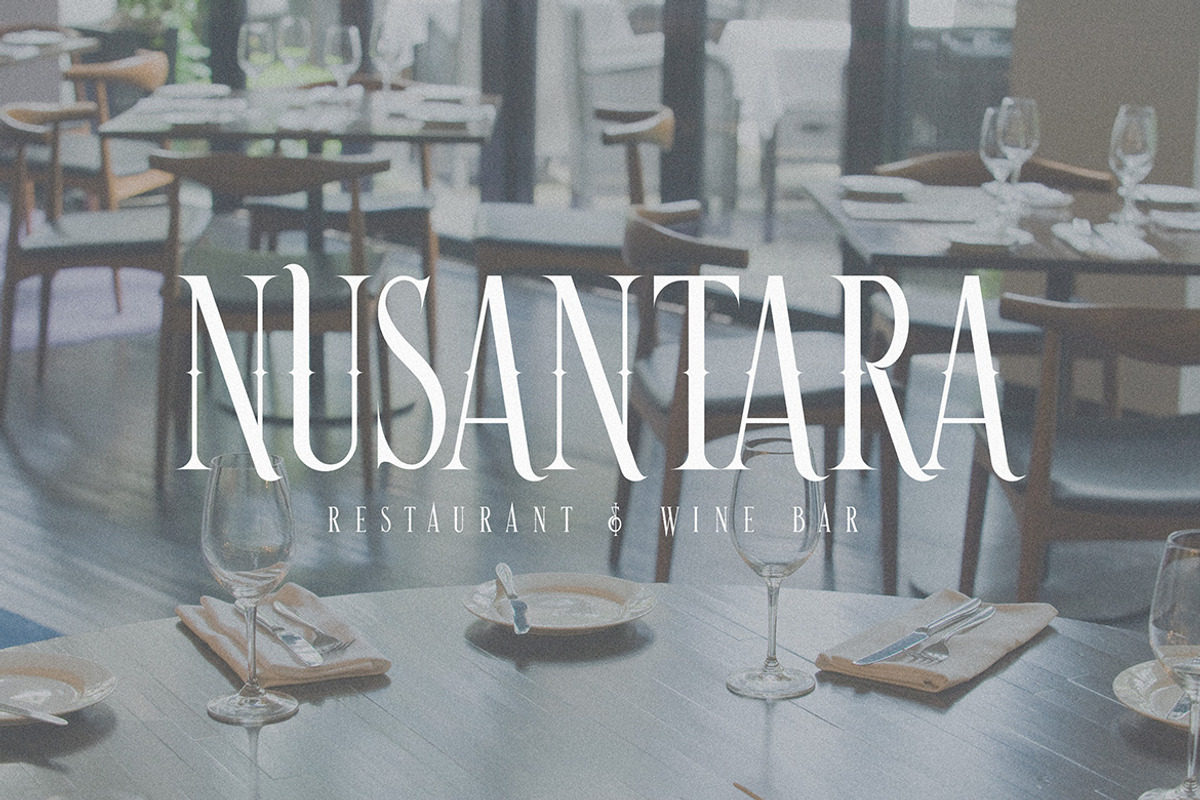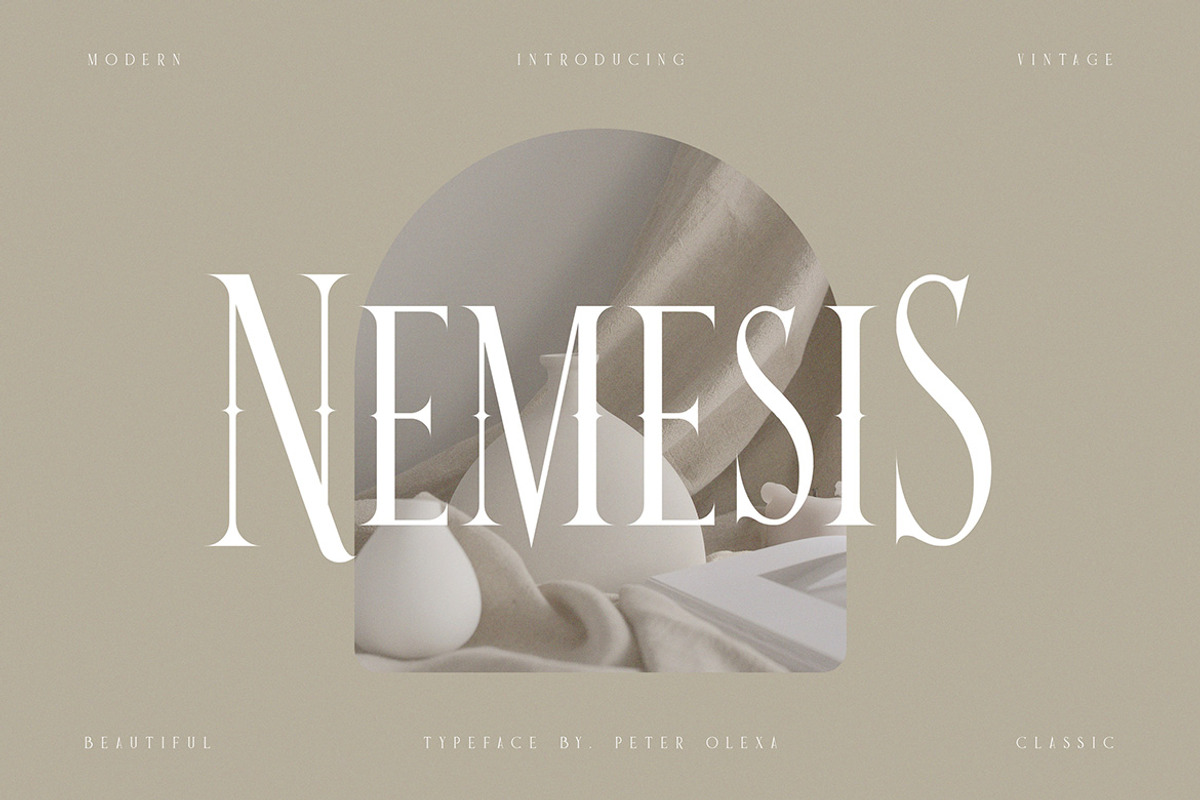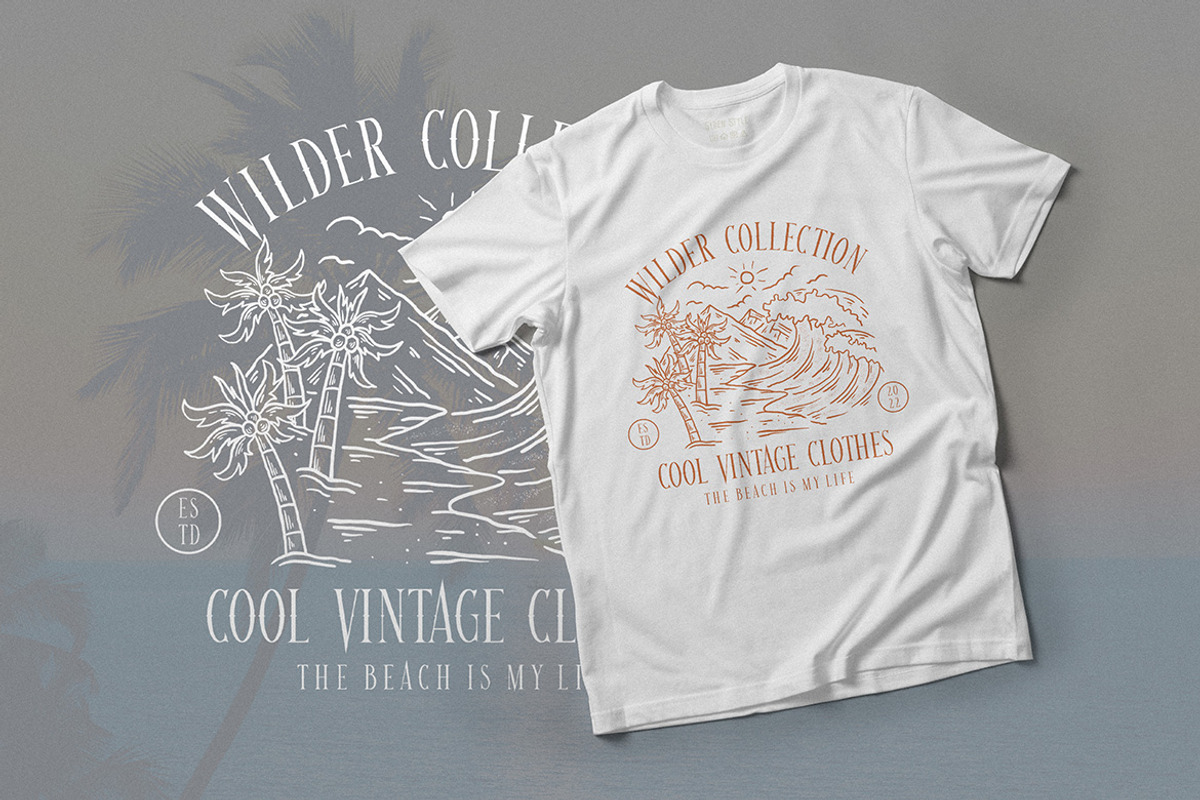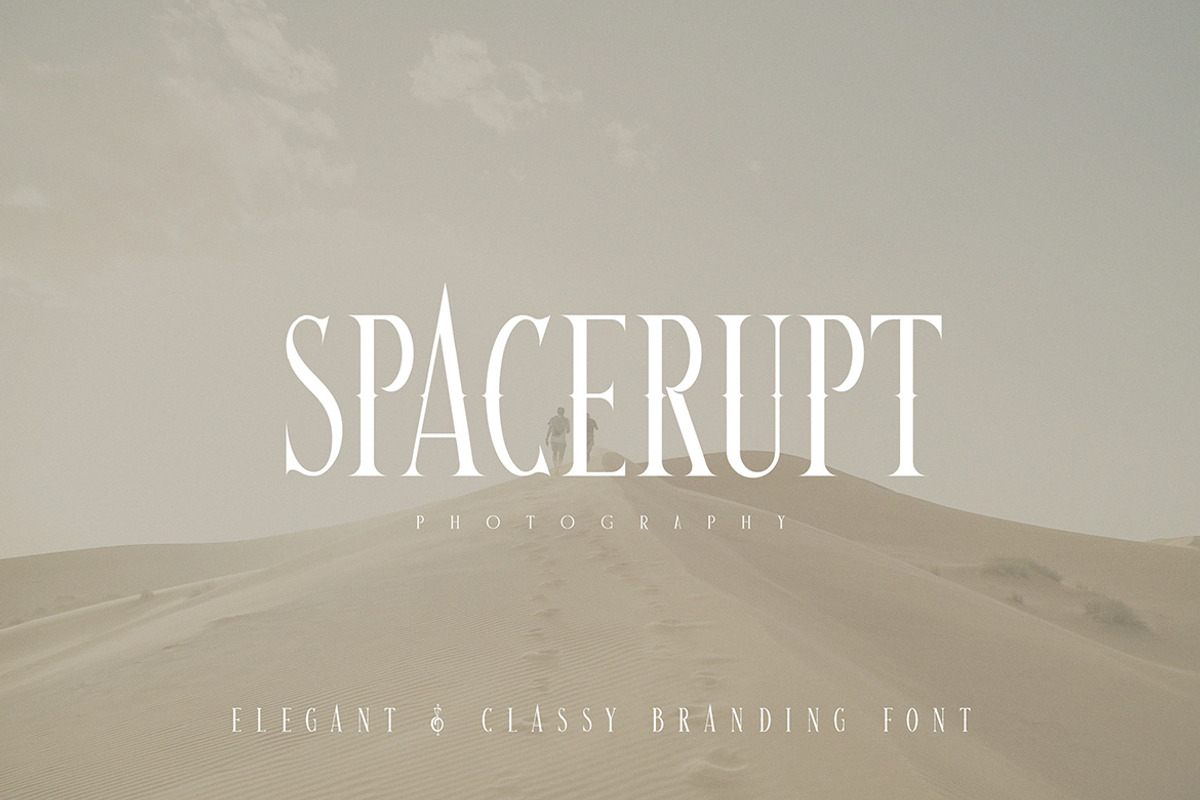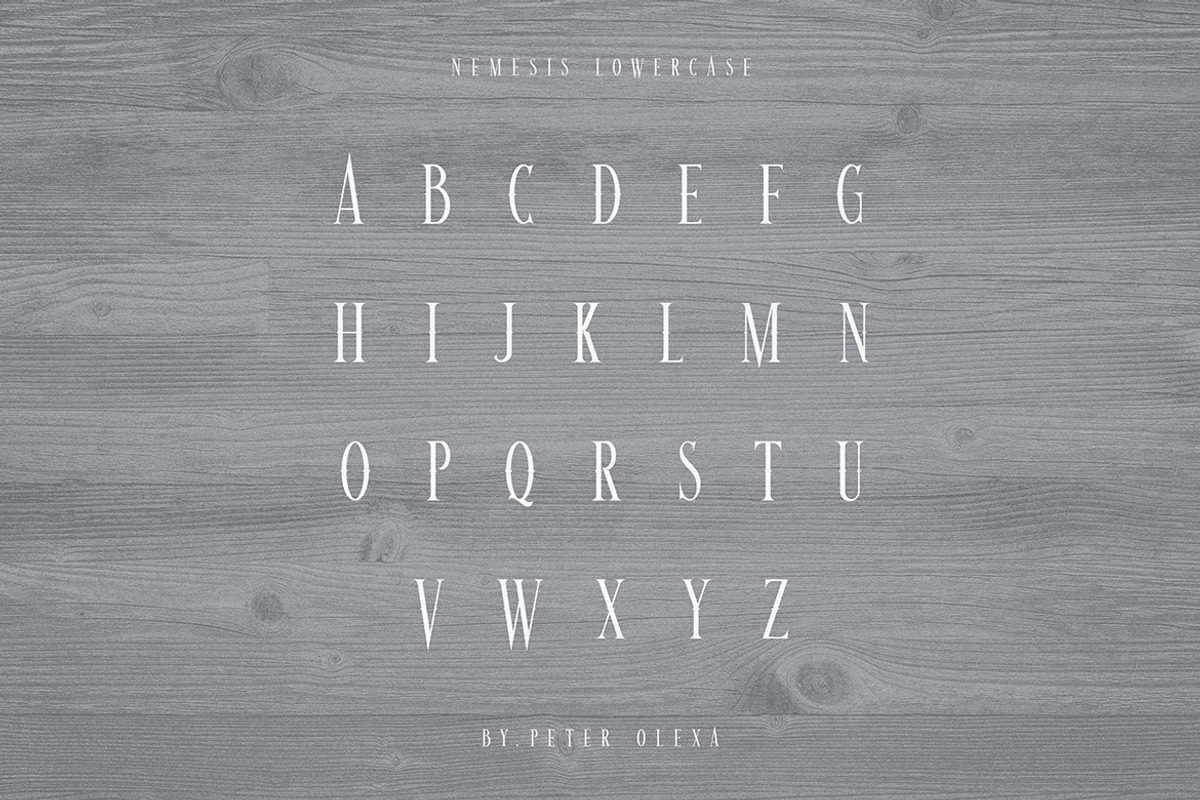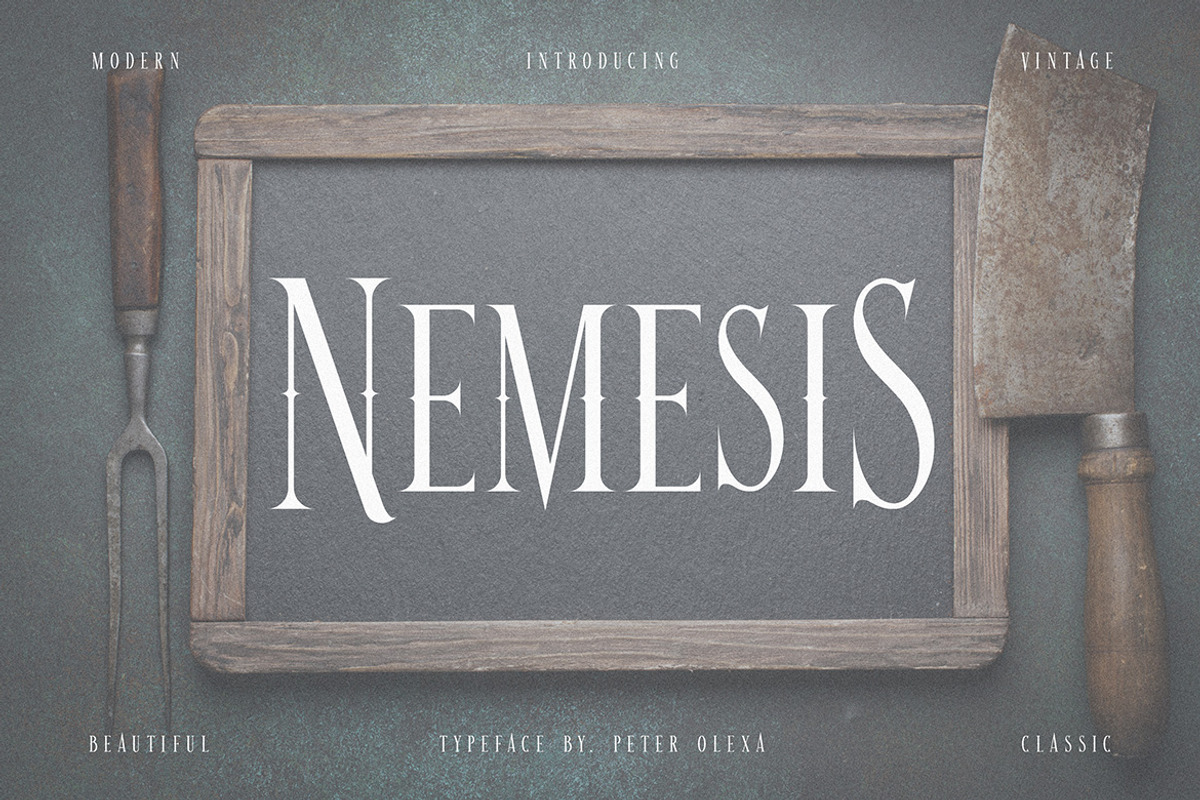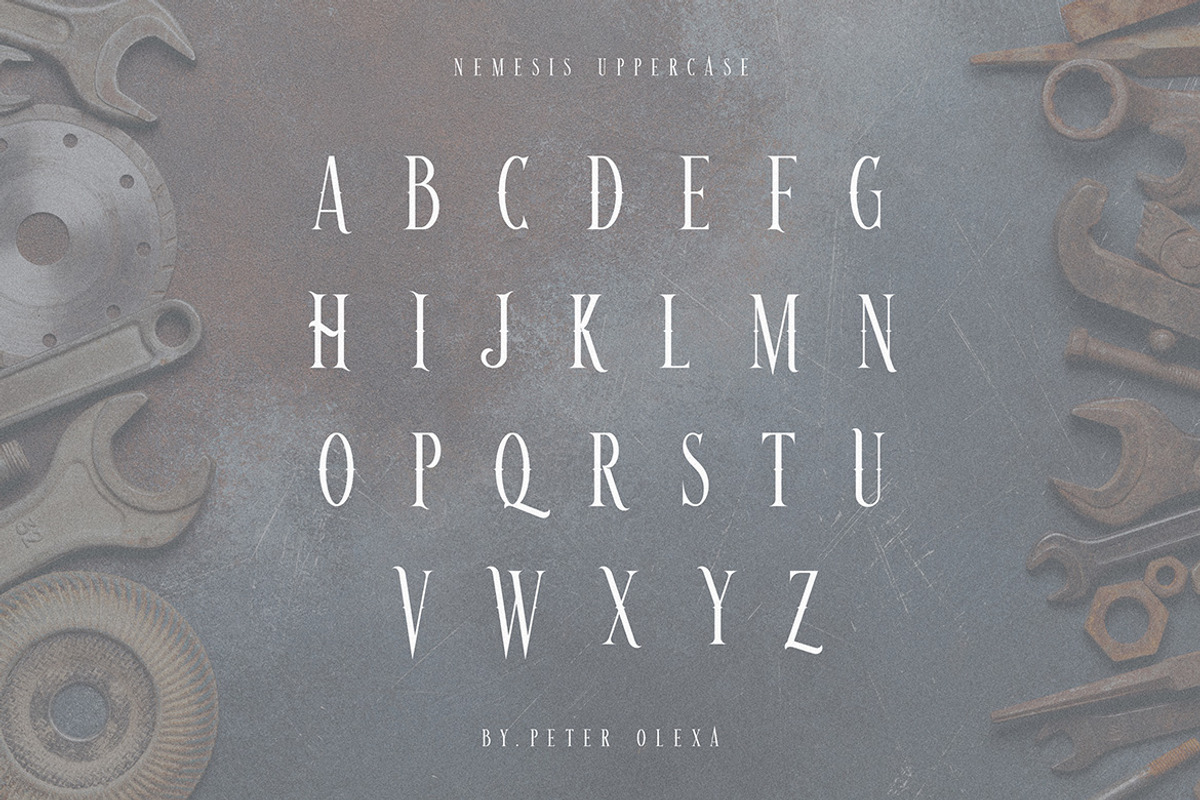
Nemesis Vintage Font
Trendy, modern, clean, vintage, retro, condensed & classy serif font. Great for your new logo or branding project.
- Great for retro or vintage style branding projects